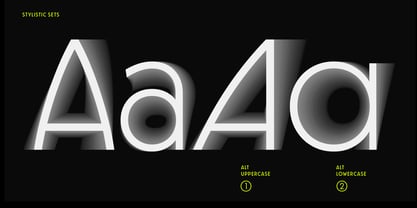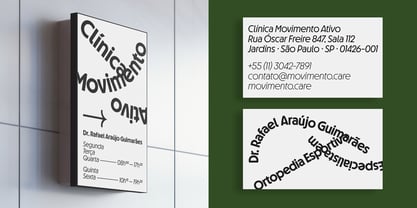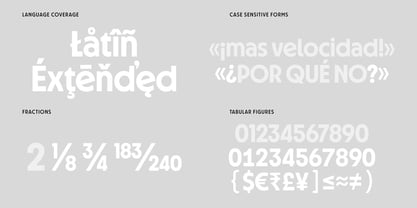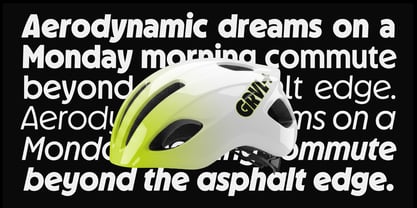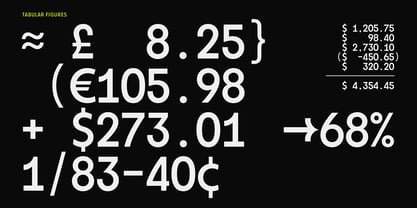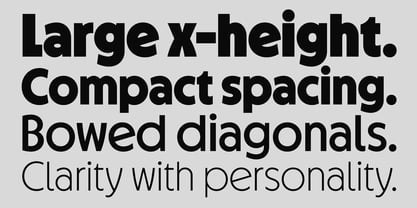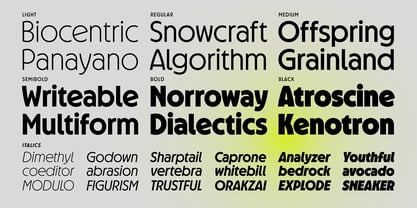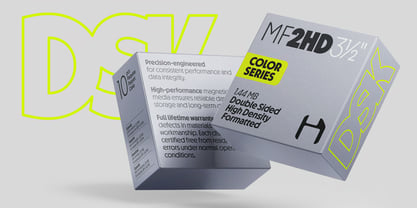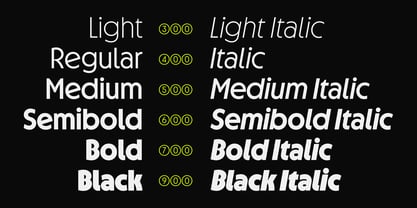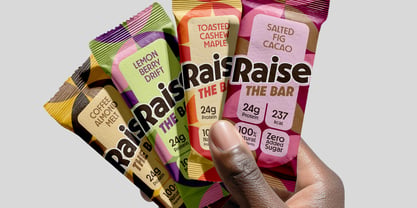
Disk Format
La familia tipográfica Disk Format fue diseñada por Roland Hörmann y publicada por phospho. Disk Format contiene 13 estilos y opciones de paquete familiar. Más información sobre esta familia
Disk Format is a geometric sans-serif available in weights from Light to Black, maintaining a restrained visual character throughout. Wide proportions, tight spacing, a large x-height, and even stroke weight create dense, stable word shapes with strong readability and an efficient visual rhythm across longer texts. Bowed diagonals bring subtle echoes of 1970s display typography into an otherwise contemporary design, aimed at editorial, interface, information, and identity design requiring clarity with personality.
Disk Format is accompanied by the related subfamily Disk, which expands the same geometric foundation into a more expressive, display-oriented direction shaped by sporty, 80s/90s-tech-inflected gestures.